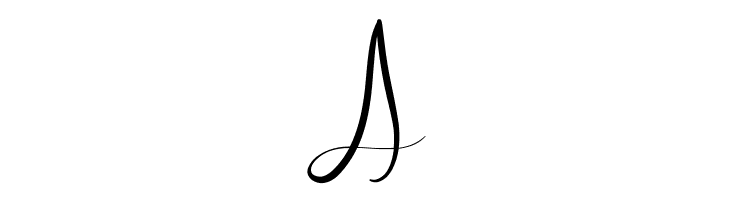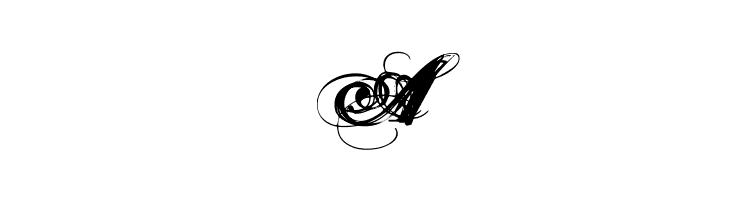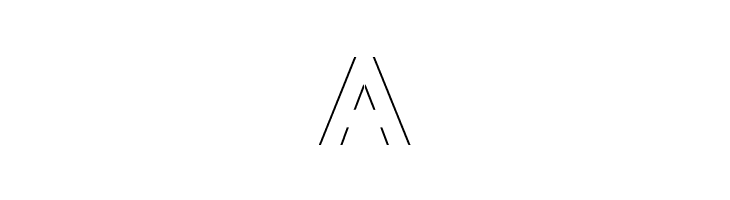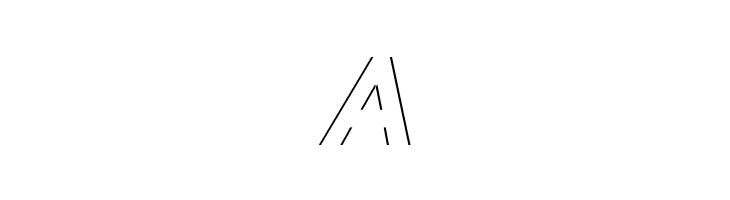
A playful, cursive font with dynamic curves and artistic flair.
A decorative font with characters encased in leafy wreaths, offering a whimsical and nature-inspired style.
A playful, bold font with rounded edges and a hand-drawn appearance.
A bold, rounded, comic-style font with a playful and energetic appearance.
Decorative font with illustrated human portraits in a comic style.
A bold, playful handwritten font with a lively and energetic style.
A bold, intricate blackletter font with sharp angles and dramatic strokes.
A dramatic Blackletter font with ornate, angular designs and historical elegance.
A bold, Gothic-inspired font with sharp, angular edges and a modern twist.
A bold, italic font with high contrast and dynamic, angular forms.
A bold, rough-edged font with a modern blackletter style.
A bold, rough, and italicized font with a dynamic and textured style.
A bold, tilted font with a dynamic and gothic-inspired style.
Cartoonish, bold-outlined animal and creature illustrations with a humorous style.
A bold, flame-inspired font with dramatic, fiery extensions.
A bold, playful font with exaggerated serifs and dynamic forms.
A jagged, thorn-like decorative font with sharp, elongated strokes.
A cursive, handwritten font with elegant, flowing strokes.
A fluid and elegant script font with a handwritten feel.
A graceful, cursive script font with flowing, elongated strokes.
A modern, sans-serif typeface with geometric and minimalist design.
A bold, modern sans-serif font with clean lines and strong visual impact.
A bold, italicized font with a dynamic and modern appearance.
A modern, sleek italic font with clean lines and dynamic slant.
A modern, thin sans-serif font with clean lines and a minimalist design.
A sleek, thin, italicized font with a modern and elegant design.
A bold, flowing script font with elegant, interconnected strokes.
A bold, flowing script font with an italic slant and a handwritten feel.
A modern, geometric font with a stencil-like design and clean lines.
A modern, oblique font with sharp lines and geometric influences.
A modern, elegant handwritten font with slender, slightly slanted characters.